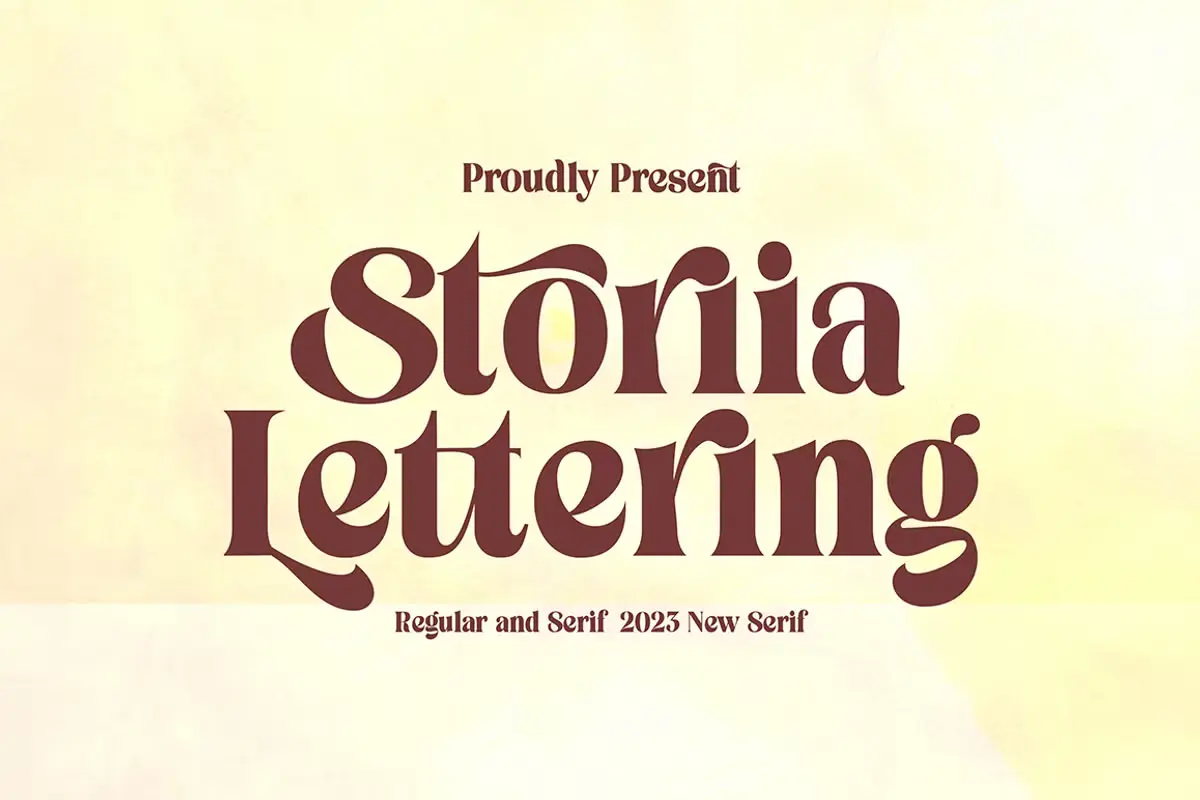
Storia is a serif-style lettering font designed to create bold and clean headlines for various editorial needs. Its elegant yet modern design makes it a great choice for websites, editorial posters, T-shirt prints, and magazine covers. Whether used for digital or print media, Storia ensures a strong and eye-catching presence that enhances any design project.
This versatile typeface offers both italic and upright styles, allowing for flexible applications across different creative works. Its clean and striking appearance makes it easy to pair with other fonts while maintaining readability and impact. Whether you’re designing for branding, marketing, or editorial layouts, Storia delivers a refined and professional look.